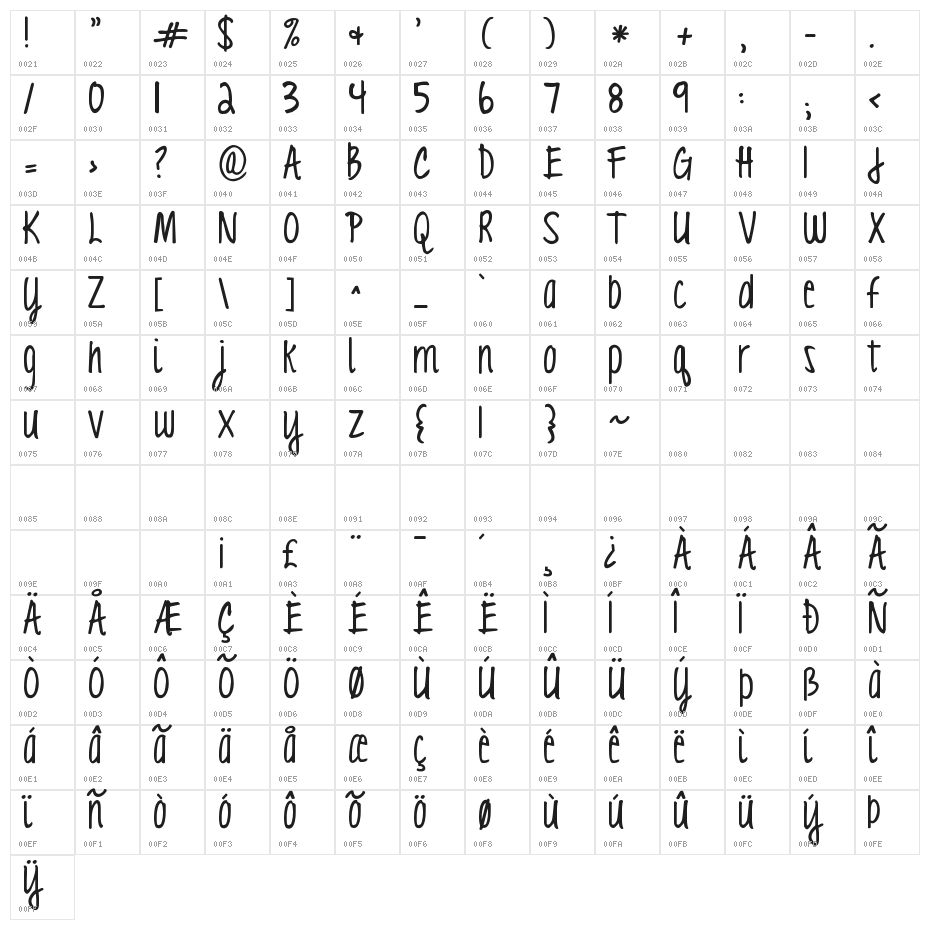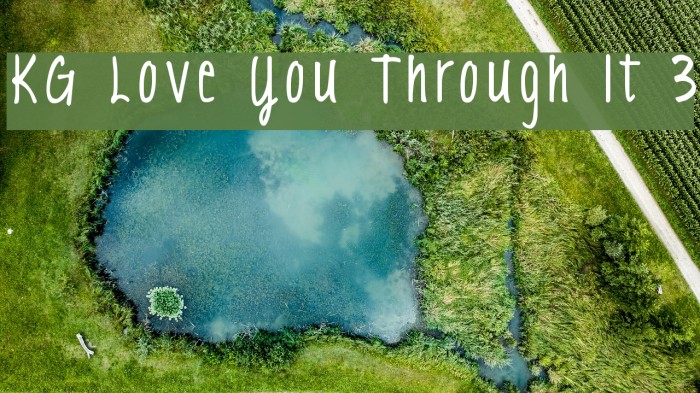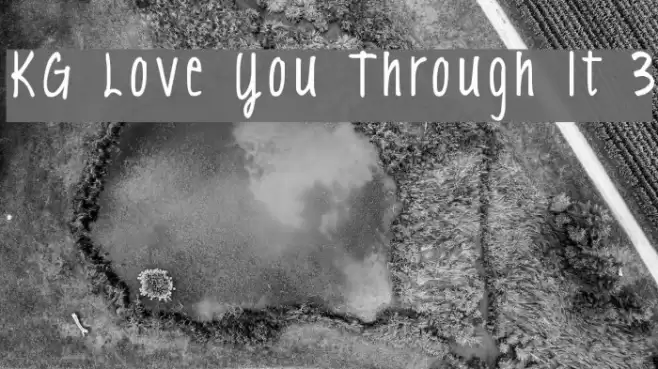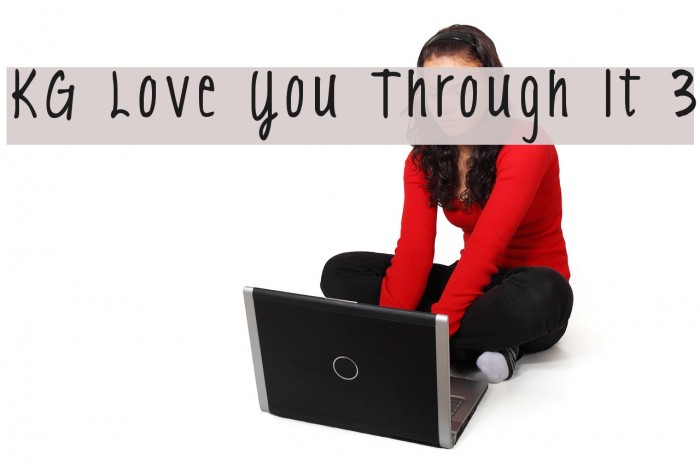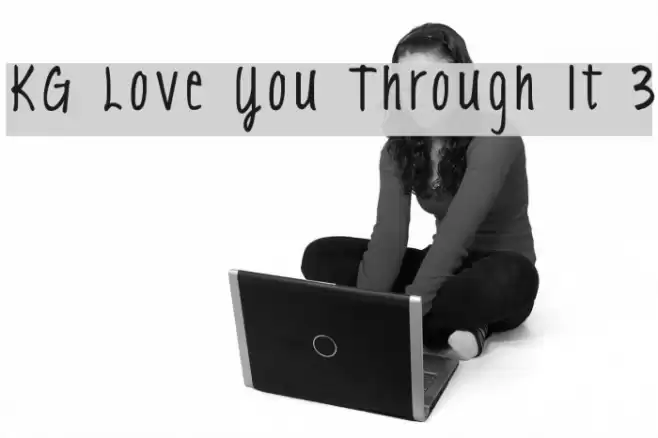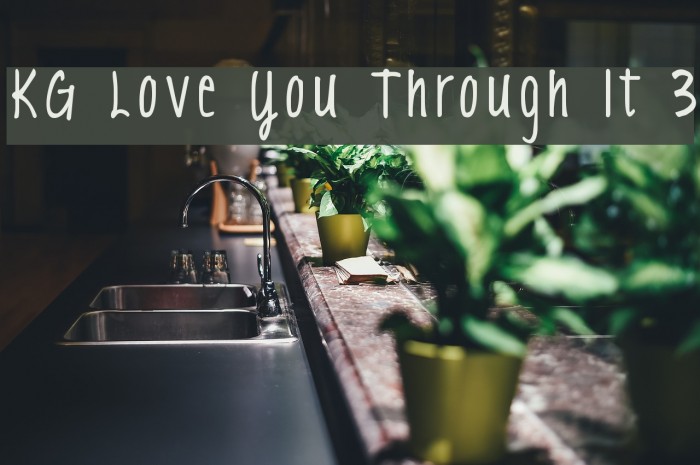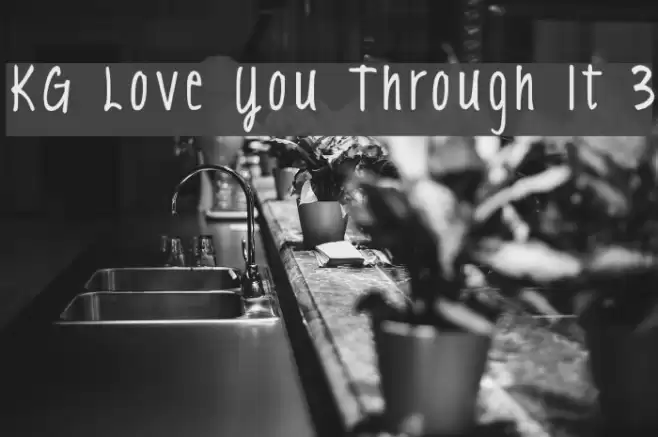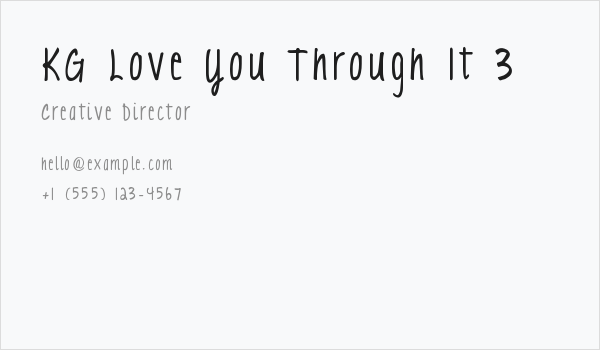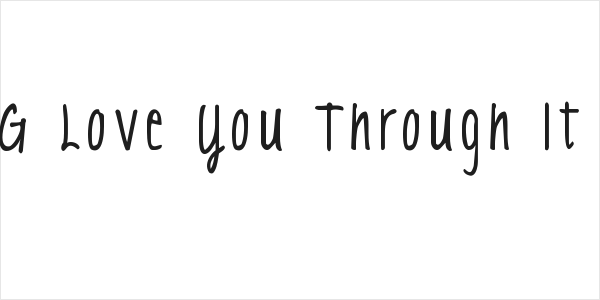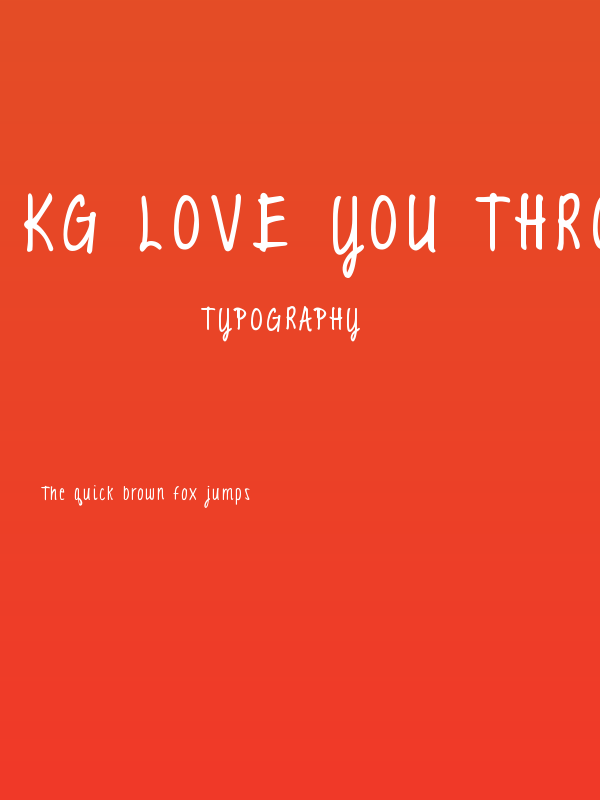
KG Love You Through It 3 Font
KG Love You Through It 3 Description
This font features a playful and casual handwritten style, characterized by its smooth curves and slightly irregular letterforms that give it a personal touch. The letters are well-spaced, providing a clean and readable appearance. The uppercase letters are bold and slightly taller than the lowercase, which have a more rounded and softer look. Numbers and special characters maintain the same playful aesthetic, making this font versatile for various uses. Its informal style is perfect for projects that require a friendly and approachable feel.
| Use Case | Headlines, Informal text, Branding |
| Proposed Projects | Ideal for greeting cards, children's books, personal blogs, and informal branding. |